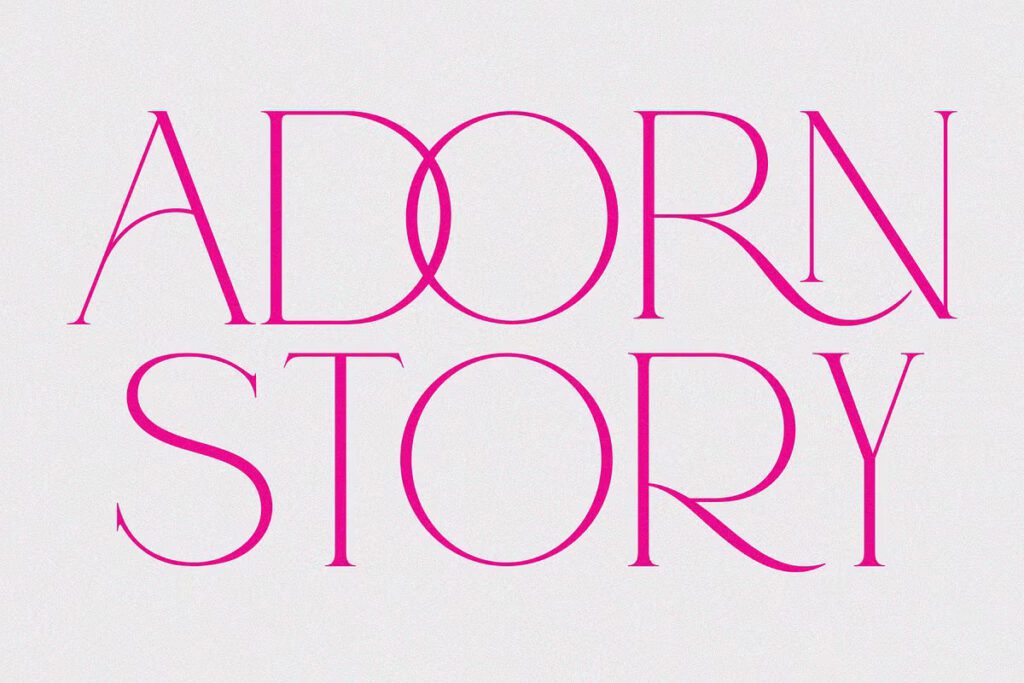
Adorn Story Serif: A Timeless Font for Elegant Creations
If you’re looking to elevate your design with a touch of classic elegance, look no further than the Adorn Story Serif font. This beautifully crafted serif typeface is ideal for designers who want to create a sophisticated, timeless aesthetic across a variety of projects. Whether you’re working on branding, editorials, or invitation designs, Adorn Story Serif offers the perfect balance of modern and traditional elegance.
Why Choose Adorn Story Serif?
1. A Standalone MasterpieceAdorn Story Serif is a standalone font from the popular Adorn Story collection, allowing you to access its stunning serif elements without purchasing additional script fonts. This makes it a cost-effective option for designers who want the luxury and grace of serif fonts without the extras.
3. Perfect for a Wide Range of ProjectsAdorn Story Serif is an excellent choice for a variety of design purposes, from branding and logos to social media graphics, wedding invitations, and editorial designs. Its classic serif structure adds a touch of sophistication, making it a standout font for projects that require elegance and clarity.
Features of Adorn Story Serif
Beautifully crafted serif font with a modern yet timeless appeal.
Versatile enough to be used in branding, editorial, invitations, and more.
Offers a clean and polished look that enhances readability.
Why Adorn Story Serif is Perfect for Designers
The charm of Adorn Story Serif lies in its ability to strike the perfect balance between tradition and modernity. Its classic serif structure adds weight and formality, while its refined design keeps it feeling fresh and contemporary. This font is perfect for projects that require a professional touch without feeling too rigid or outdated.
Whether you’re designing wedding invitations or crafting an eye-catching brand logo, Adorn Story Serif ensures that your work exudes style and sophistication. Its smooth curves and clean lines make it ideal for both digital and print media, and its multiple format options make it easy to work with across different platforms.
With its timeless elegance and modern versatility, Adorn Story Serif is a must-have font for designers looking to create sophisticated, polished projects. Its ability to seamlessly fit into a variety of design styles makes it a valuable addition to your font collection.